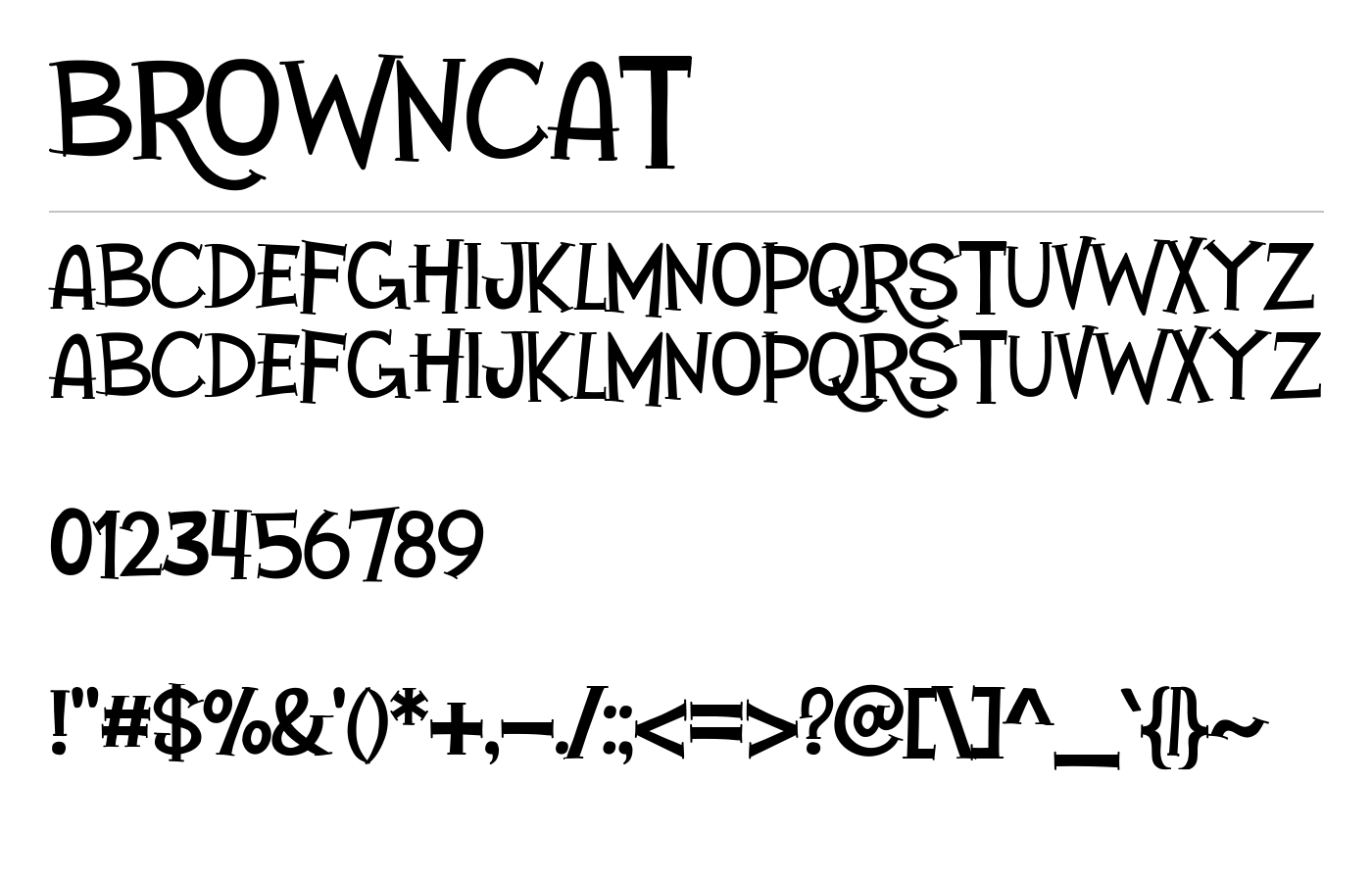
Browncat is a playful and quirky serif font with an uneven, hand-drawn feel that adds personality and charm to any design. Its irregular strokes and unique letterforms give it an informal and creative vibe, making it perfect for friendly branding, casual headlines, and fun editorial projects. This font works best where a distinctive, approachable style is desired, adding character without compromising readability.
Browncat Font
About Browncat Font